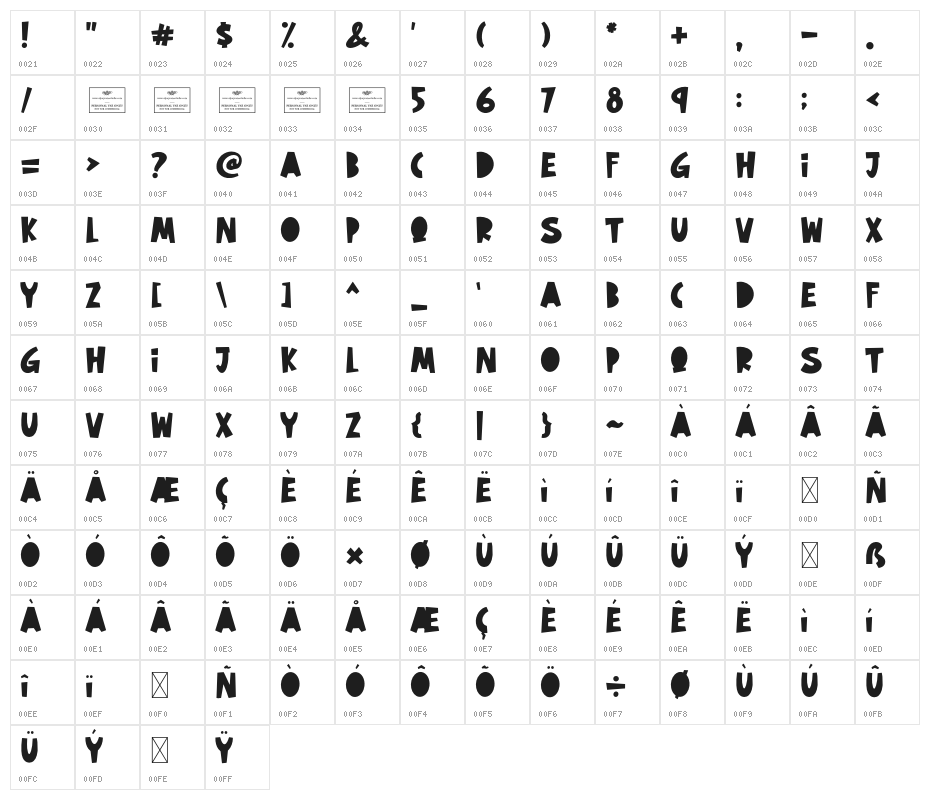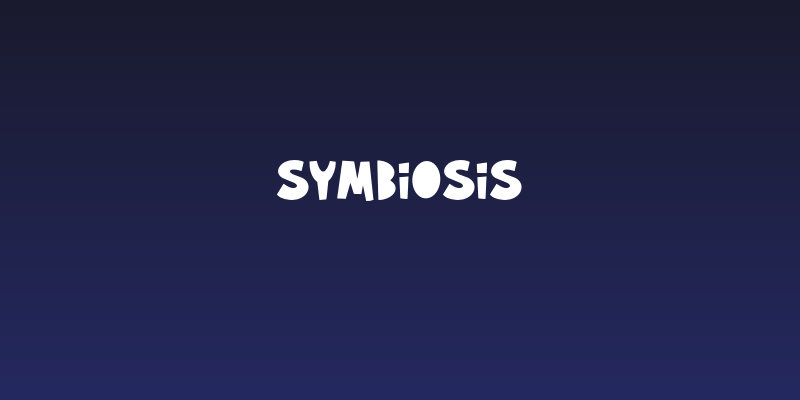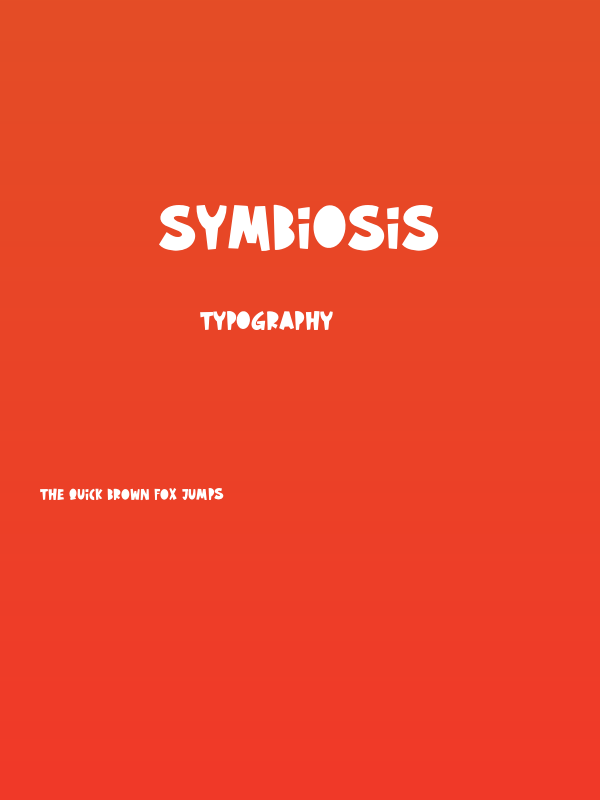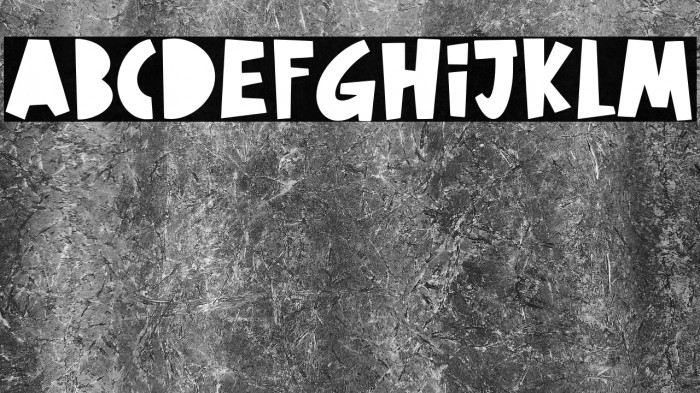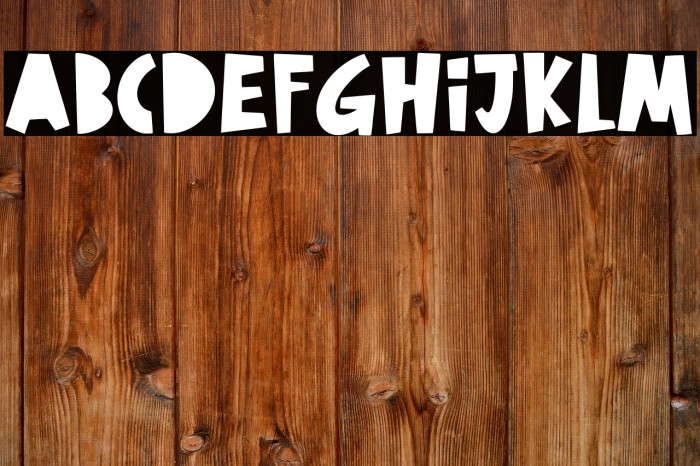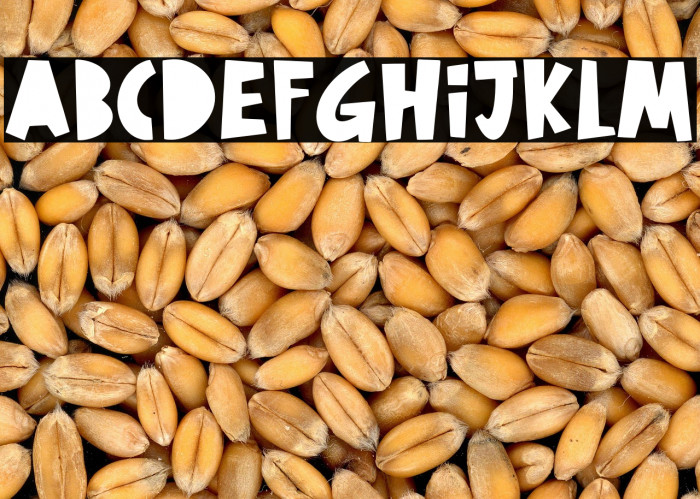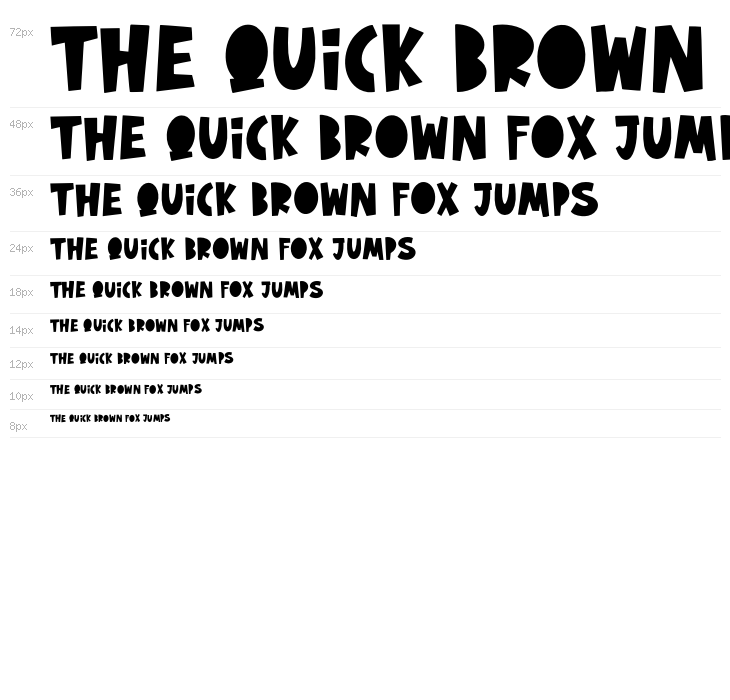
Symbiosis Font
Symbiosis Description
This font features a playful and bold design, characterized by its uneven, hand-drawn appearance. The letters have a whimsical, cartoon-like quality, with exaggerated curves and varying stroke thicknesses that give it a lively and dynamic feel. The uppercase and lowercase letters maintain a consistent style, while the numbers and special characters complement the overall aesthetic. This font's unique style makes it stand out, adding a touch of fun and creativity to any project.
SYMBIOSIS UPPERCASE
SYMBIOSIS LOWERCASE
SYMBIOSIS OTHER CHARS
| Overall Style | Playful, Cartoonish, Creative |
| Proposed Projects | Ideal for children's books, comic strips, playful branding, and creative posters. |